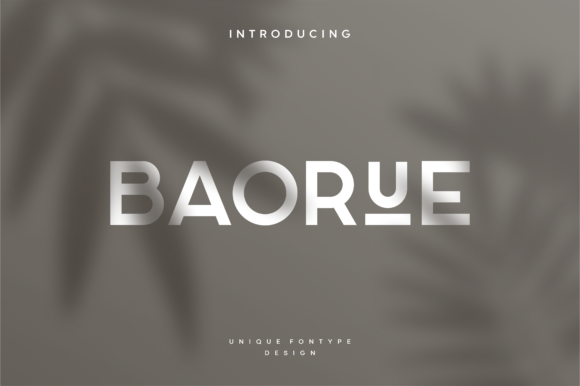
Baorue Font
Journey into the realm of Baorue Font, a masterfully crafted sans serif font family, and unlock the gateway to exceptional typography. Designed with meticulous precision, Baorue exudes both boldness and elegance, making it the ultimate choice for professional designs that demand attention. Its crisp lines and clean curves bring a touch of sophistication to any project, leaving an indelible mark on your audience.
Unleash your creativity and let Baorue transform your designs into captivating masterpieces. Its extensive character set and multilingual support empower you to craft captivating content that resonates with a global audience. From eye-catching headlines that demand attention to elegant body text that invites readers to delve deeper, Baorue effortlessly elevates your projects to new heights of visual appeal.
Engage your audience with the versatility of Baorue, seamlessly adapting to a myriad of design styles. Whether you're crafting sleek logos, captivating posters, or informative brochures, Baorue effortlessly complements your vision. Its innate ability to enhance both digital and print media makes it the perfect choice for a wide range of projects, ensuring your designs shine in any context.
With Baorue, you're not just downloading a font; you're investing in a creative companion that amplifies your design potential. Experience the transformative power of Baorue and elevate your projects to new heights of excellence. Embark on this typographic journey today and unlock a world of endless creative possibilities.